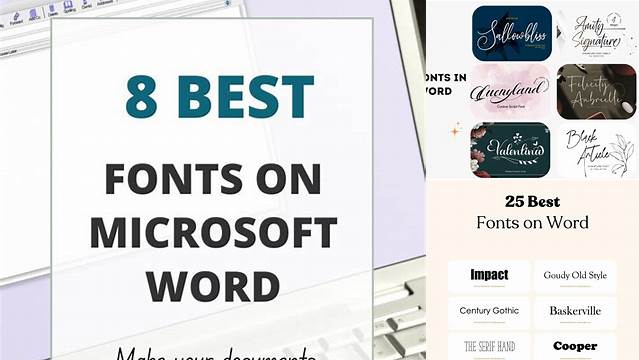
Best Fonts For Microsoft Word: A Comprehensive Guide
Hey guys! Choosing the right font in Microsoft Word can feel like a small detail, but trust me, it makes a huge difference. The perfect font can elevate your document from looking amateur to professional, making your message clear and engaging. Whether you're crafting a resume, writing a report, or designing a newsletter, the font you select speaks volumes. In this guide, we're diving deep into the world of Microsoft Word fonts, exploring the best options available and how to use them effectively. We'll look at various categories, from classic choices to more modern and creative styles, ensuring you have the knowledge to make the best font decisions for any project. So, let’s jump in and discover how to transform your documents with the power of typography!
Understanding the Importance of Font Choice
Let's get real – fonts aren't just about making words look pretty. They play a crucial role in how your content is perceived. Think about it: a playful, cartoonish font might be great for a children's book, but it's definitely not the vibe you want for a legal document or a formal business proposal. Font choice is about readability, professionalism, and reflecting the tone and purpose of your writing. A well-chosen font enhances readability, making it easier for your audience to engage with your content. On the other hand, a poorly chosen font can strain the eyes, confuse the reader, and even undermine your message. Imagine reading a lengthy report in a font that's too small, too decorative, or simply doesn't suit the context – not a fun experience, right? Furthermore, the right font can reinforce the professionalism of your work. Using classic, clean fonts for formal documents shows attention to detail and respect for your audience. More creative fonts can add personality to your projects, but it's essential to balance style with clarity. Consider the overall impression you want to make. Are you aiming for a serious and authoritative tone, or something more friendly and approachable? Your font choice should align with these goals. Ultimately, the font you select is a reflection of your message and your brand. It's a subtle yet powerful way to communicate effectively and make a lasting impression. So, taking the time to understand the nuances of different fonts and their impact is a worthwhile investment for anyone who wants their writing to shine.
Top Classic Fonts for Professional Documents
When it comes to professional documents, you can't go wrong with the classics. These fonts are like the little black dress of typography – timeless, versatile, and always in style. Let's talk about some of the top classic fonts that will help you nail that professional look in Microsoft Word. First up, we have Times New Roman. This font is a workhorse for a reason. It's clean, legible, and widely recognized, making it an excellent choice for formal documents, reports, and academic papers. Times New Roman exudes a sense of tradition and authority, which is why it's been a staple in the publishing industry for decades. If you want to convey seriousness and professionalism, this is your go-to font. Next, there's Arial. Often considered the modern alternative to Times New Roman, Arial is a sans-serif font known for its simplicity and clarity. It's incredibly readable on screen, making it ideal for digital documents and presentations. Arial has a neutral, straightforward feel, which makes it a safe bet for various professional contexts. Whether you're writing a business proposal or creating a handout for a meeting, Arial will get the job done without any fuss. Then we have Calibri, the current default font in Microsoft Word. Calibri is a sans-serif font with a slightly softer, more contemporary feel than Arial. It's well-balanced and easy on the eyes, making it a great choice for body text. Calibri strikes a nice balance between professionalism and approachability, making it suitable for a wide range of business communications. Last but not least, let's not forget Garamond. This serif font has a classic, elegant appearance that's perfect for documents where you want to convey sophistication and refinement. Garamond is often used in books and magazines because of its readability and timeless appeal. Using Garamond in your professional documents can add a touch of class and make your writing stand out. When choosing a classic font, remember to consider the specific context and your audience. These fonts are reliable and versatile, but understanding their subtle differences can help you make the best choice for your needs.
Modern and Creative Font Options
Okay, so we've covered the classics, but what if you're looking to add a little pizzazz to your documents? Maybe you're working on a project that calls for something a bit more modern, creative, or even playful. No worries, modern and creative font options are here to save the day! Microsoft Word has a fantastic selection of fonts that can help you express your unique style and make your content pop. Let’s dive into some standout choices. First off, let’s talk about Helvetica. Although it might seem like a classic, Helvetica's clean, minimalist design gives it a modern edge. It’s incredibly versatile and works well for headlines, body text, and even branding materials. If you want a font that’s both contemporary and highly readable, Helvetica is a solid pick. Moving on, Open Sans is another excellent choice for a modern, clean look. This sans-serif font was designed with readability in mind, making it perfect for websites and digital documents. Its open, airy design gives it a friendly and approachable feel, which can be great for reports, presentations, and marketing materials. If you're aiming for a professional yet contemporary vibe, Open Sans is a winner. If you're looking to inject some personality into your documents, consider Montserrat. This geometric sans-serif font has a stylish, urban feel that’s perfect for headings and shorter blocks of text. It’s bold and eye-catching, making it a great choice for titles, posters, and other visual elements. Montserrat can add a touch of sophistication to your projects while still keeping things modern. For those who want to add a bit of flair, Lato is a fantastic option. This sans-serif font has a semi-rounded design that gives it a warm, friendly feel. It’s highly readable and works well in a variety of contexts, from body text to headlines. Lato strikes a nice balance between professionalism and personality, making it a versatile choice for different types of projects. Remember, when using modern and creative fonts, it’s essential to use them judiciously. Too many fancy fonts can make your document look cluttered and unprofessional. Stick to one or two creative fonts and pair them with a classic font for the body text to ensure readability. Have fun experimenting and finding the perfect font to match your style and project goals!
Tips for Pairing Fonts Effectively
Okay, so you’ve got a fantastic collection of fonts, but how do you make them play nicely together? Pairing fonts effectively is an art, guys, but it's totally achievable with a few simple tips. Combining the right fonts can take your document from good to amazing, while a bad pairing can make your content look cluttered and unprofessional. Let’s break down some key strategies to help you master the art of font pairing. First off, contrast is key. You generally want to pair fonts that are different enough to create visual interest but still complement each other. A classic pairing strategy is to combine a serif font (like Times New Roman or Garamond) with a sans-serif font (like Arial or Helvetica). The contrast between the serif's traditional, slightly ornate style and the sans-serif's clean, modern look can create a balanced and visually appealing effect. Think of it as the font equivalent of pairing a blazer with jeans – the contrast adds flair! Another tip is to limit the number of fonts you use in a single document. Sticking to two or three fonts is usually a safe bet. Using too many fonts can make your document look chaotic and confusing. Choose one font for headings and another for body text, and maybe a third for accents or captions. This will help maintain consistency and readability throughout your document. When selecting fonts to pair, consider their mood and personality. Fonts, just like colors, evoke different feelings. Some fonts feel serious and formal, while others are more playful and casual. Make sure the fonts you pair align with the tone of your content. For example, if you're writing a professional report, you might pair a classic serif font with a clean sans-serif font. If you're designing a poster for a fun event, you might choose two more creative fonts that have a similar vibe. Don't be afraid to experiment and play around with different font combinations, but always keep readability in mind. The primary goal is to make your content easy to read and understand. Try different pairings and see what works best for your project. Pay attention to how the fonts look together on the page – do they complement each other, or do they clash? You can also use online tools and resources to find font pairings that have been proven to work well. By following these tips, you’ll be pairing fonts like a pro in no time, creating documents that are both visually appealing and highly effective.
Common Font Mistakes to Avoid
Alright, guys, let's talk about some common font mistakes that can make your documents look less than stellar. We all make mistakes, but knowing what to avoid can save you from some serious font faux pas. By steering clear of these pitfalls, you'll ensure your documents always look polished and professional. One of the biggest mistakes is overusing decorative fonts. Fancy fonts can be tempting, but too much of a good thing can be a bad thing. Decorative fonts are great for adding a touch of personality to headings or titles, but they can be challenging to read in large blocks of text. Using them sparingly and pairing them with a more readable font is the way to go. Think of decorative fonts as the statement jewelry of typography – a little goes a long way. Another common mistake is using too many fonts in one document. As we discussed in the font pairing section, sticking to two or three fonts is generally the best practice. A jumble of different fonts can make your document look cluttered and unprofessional. Choose a font for your headings, one for your body text, and maybe a third for captions or accents, and stick to those throughout your document. Consistency is key! Ignoring readability is another major font mistake. No matter how beautiful a font is, if it's hard to read, it's not the right choice. Make sure your font is clear and legible, especially for body text. Avoid fonts that are too thin, too condensed, or overly stylized. Your audience shouldn't have to strain their eyes to read your content. The goal is to make your message as accessible as possible. Using the wrong font for the context is another pitfall to avoid. The font you choose should align with the tone and purpose of your document. A playful, whimsical font might be perfect for a birthday invitation, but it's probably not the best choice for a business report. Consider the impression you want to make and choose a font that supports that message. Defaulting to standard fonts without thought is also a mistake. While fonts like Times New Roman and Arial are classics for a reason, they can also make your document look generic if used without intention. Take the time to explore other font options and choose something that truly reflects your style and message. Don't just settle for the default setting! By being mindful of these common font mistakes, you can elevate your document design and ensure your message is communicated effectively. Happy fonting!